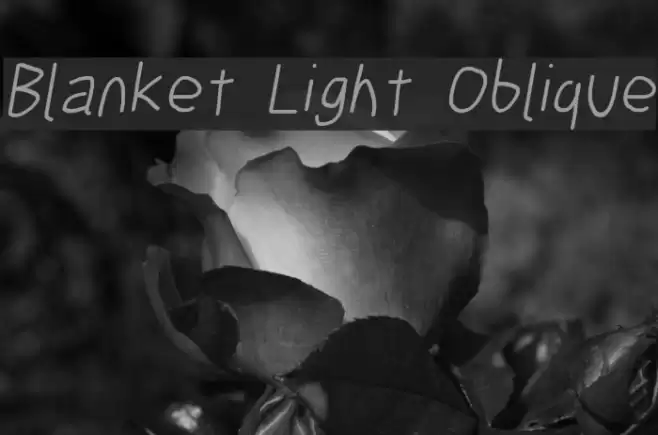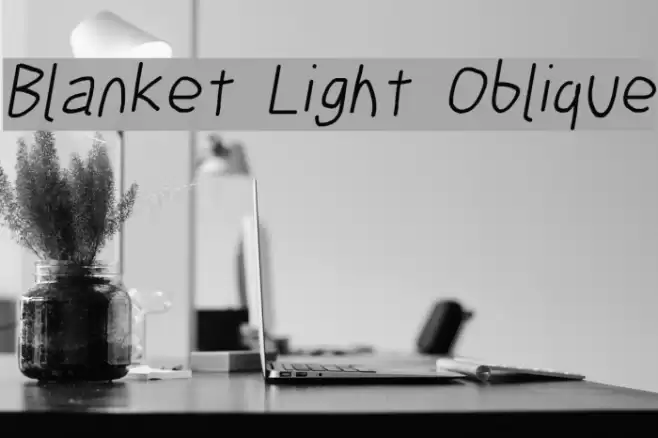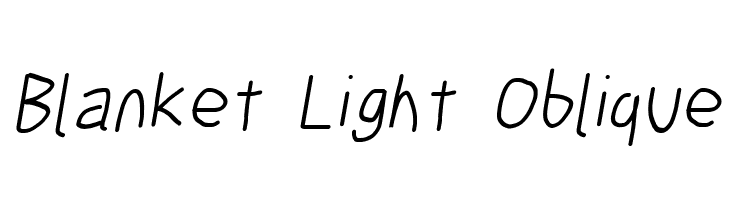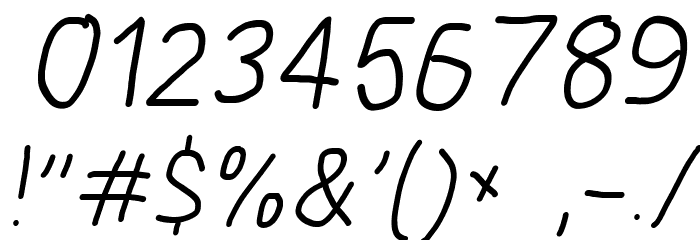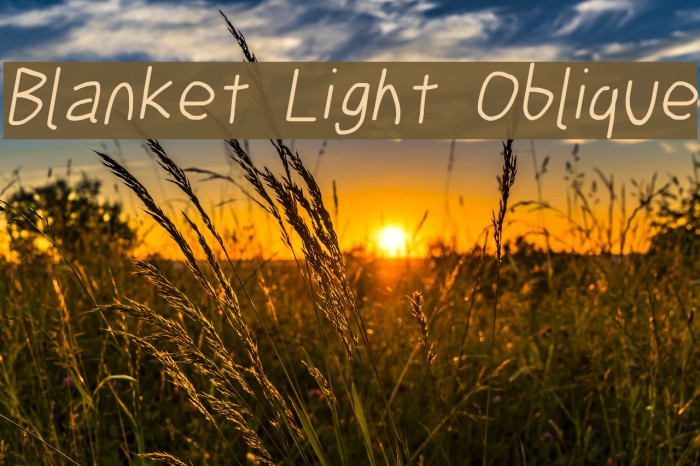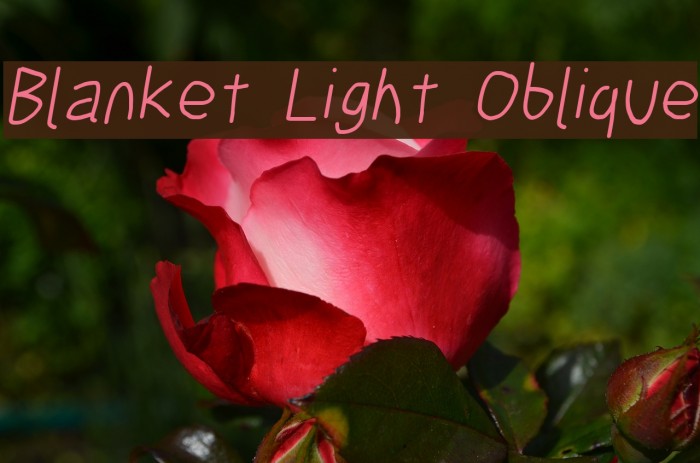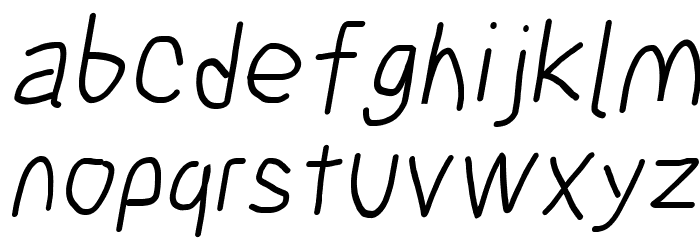
Blanket Light Oblique
This font features a handwritten style with a casual and informal appearance. The characters are slightly slanted, giving it an oblique look, which adds a dynamic and playful feel. The strokes are consistent and smooth, with a light weight that enhances its airy and approachable nature. The font maintains a uniform character width, ensuring readability while retaining its unique charm. It includes a full set of uppercase and lowercase letters, numerals, and a variety of special characters, making it versatile for various design needs.
A light, handwritten oblique font with a casual and playful style.
- Proposed Projects: Ideal for personal notes, greeting cards, informal invitations, and playful branding projects.
- Weight: Light
- Overall Style: Casual
- Use Case: Greeting cards, Informal invitations, Personal notes